15 Best Fonts for Packaging Design
When designing a product, it is essential to pay attention to all the small details since all of them together will define if your packaging will become a success or disaster. Finding the best font for your packaging design is no exception as well.
Creating a visually appealing packaging design does not only blend users' needs with your business goals. It's more about fine-tuning between usability, user interface design, user experience design to create a product that will do consistently well in the market.
This can be demanding and intricate work since there are many details you need to pay attention to; one of the main details that can make or break your product design is font. Fonts have their own personality, and understanding this will help you convey a brand's message in the way it's meant to be received.
Top 15 fonts to use in your design
Choosing the right font is like choosing the right outfit for the occasion. Some fonts are more playful, casual, and laid back, while others are sturdy, classy, reserved, and buttoned up. Font describes your brand's personality and compliments the overall design of your product.
But in order to choose the best font for your product packaging, you need to understand the difference between the font categories.
Serif fonts
Serif fonts are classic and refined fonts with decorative tails at the end of the letter stems and are primarily seen in newspapers, magazines, and books. These fonts are among the most popular nowadays, even though they are conservative.
These fonts leave an impression of elegance, confidence, and trustworthiness; that is why they are a good fit for companies and brands that need to appear serious and reputable. Companies like VOGUE, ZARA, J.P. Morgan use them regularly.
Here you can find a few inspiring examples of these fonts.
1. Joliet
Consider using this ultra-thin and slender font if you’d like to achieve an elegant and minimalistic look. It is perfect for designing classy-looking headlines and will add a lot of sophistication and charm to your content. This can be the best font for packaging luxury products such as perfumes, watches, and jewelry.
2. Savoire
This is a very stylish and delicate font that you can use in thin and bold format. It is easy to picture this font on some all-natural luxurious cosmetic brand, isn’t it? Use Savoire to tell a story about your organic brand.
3. Milk and Honey
This thick, curved font brings a fun, retro, and stylish vibe to your content creation. The curves at the end add interesting visual appeal and create a powerful display that commands attention. It comes with many different glyphs and swashes.
As its name suggests, this is one of the best fonts for food packaging out there. Just imagine it on an artisanal bar of chocolate!
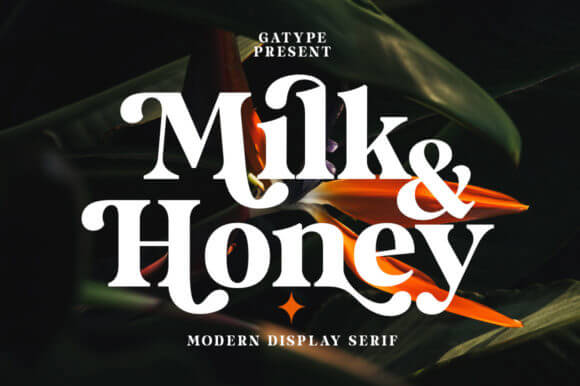
Sans serif fonts
Sans serif fonts are great for companies and brands whose targeted audience are younger generations. Sans serif fonts use simple, clean lines with sharp edges emphasizing readability. You can see this font being used by HubSpot, Facebook, Linkedin, Calvin Klein, Adidas, and Airbnb.
4. Monaco
The first impression you get from this font is pure, straightforward, and elegant. Monaco is really versatile and will make your body text or newsletter easy to read. It is also great for pairing with some eye-catching serif fonts.
It is not hard to imagine this font on minimalistic jewelry packaging, for example.
5. Miamo
Miamo is a chic, contrasted, and modern font family that comes in seven different glyphs: thin, light, regular, medium, semi bold, bold, and script. The script option mimics handwriting well and it can be used for writing some inspiring quotes or motivational messages on your products and make them more personalized.
6. Mortend
Mortend is all-caps, bold, and a strong font that gives you futuristic vibes. It comes in five different variables: light, regular, bold, extra bold, and extra bold outline. Considering the futuristic design of this font family, it can be a great choice for record labels and the gaming industry. It is easy to picture a video game cover written in this font.
Slab serif fonts
Slab serif fonts are rounded or angular. Characterizing a solid, heavy, and dramatic appearance; these fonts portray confidence, dependability, and creativeness. Brands that like to be simple but want to be recognized for effective and eye-catching design should use this font option.
Best examples are companies like SONY, VOLVO, and HONDA.
7. Bondie
Bondie is a condensed, vintage, elegant font with solid and compact lines. With its bold appearance, it will easily draw attention to your brand. It’s retro-looking so for instance, it would be a cool choice for barber grooming products or craft beer labels.
8. Touchdown
Touchdown is a heavy, masculine, sporty, and dynamic slab font inspired by American football and baseball, meaning it’s the best font for product packaging for everything athletically related, such as jerseys, caps, or college wear.